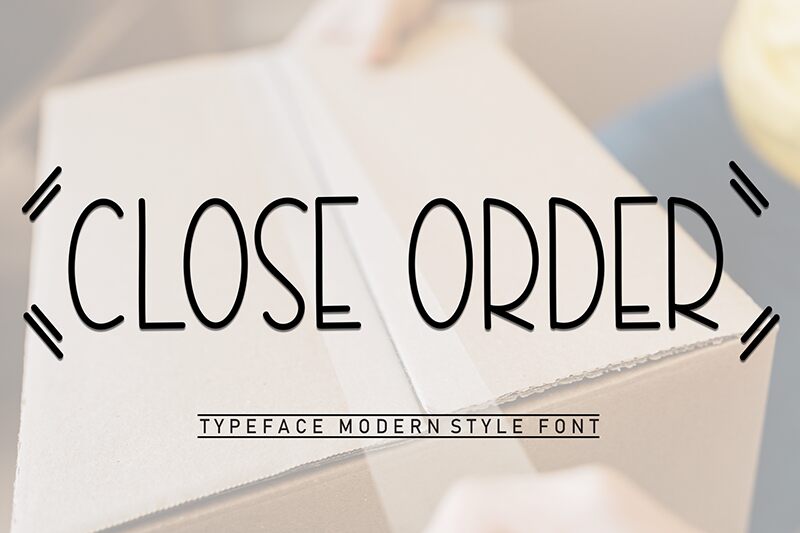
Close Order
Close Order font, designed by Andi Moz, is a condensed handwritten font that brings a whimsical and artistic touch to your projects. Its light strokes carry an elegant charm with a modern flair, making it a perfect option when you want your work to exude distinctive personality.
Free for all purposes, this close order font will look great on branding and packaging designs, posters and signage, social media posts and website content. Use this gorgeous script typeface for logos or even in movies and TV shows intros.